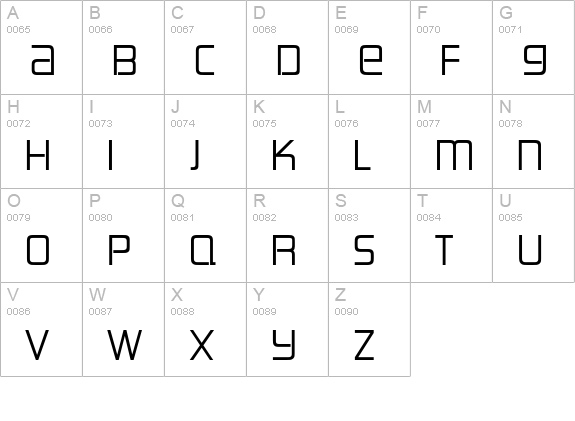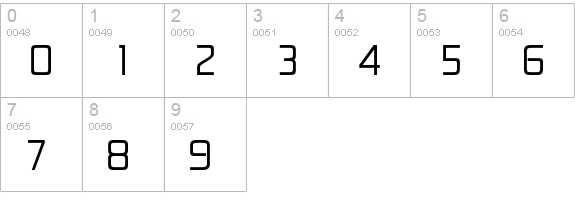
Introducing Marengo, a stunningly versatile font that effortlessly combines elegance with a touch of modernity. This font is perfect for any creative project, whether it be designing a logo, crafting a beautiful invitation, or creating eye-catching headlines. Marengo's sleek and sophisticated letterforms capture attention with their unique blend of curves and straight lines, making it a truly standout choice. But what sets Marengo apart is not just its captivating design, but its accessibility. This font is available for free, allowing anyone to bring their creative visions to life without breaking the bank. With Marengo, you can elevate your designs to new heights, without compromising on quality or style. Downloading Marengo is a breeze, as it can be easily accessed at FontsMarket.com. This user-friendly platform offers a seamless experience, ensuring that you can start using Marengo in no time. Whether you're a professional designer or a passionate hobbyist, FontsMarket.com provides you with the opportunity to freely explore and experiment with Marengo, unlocking endless creative possibilities. So why wait? Embrace the beauty of Marengo and let your imagination run wild. Download this exceptional font today and experience the freedom to create captivating designs that leave a lasting impression.